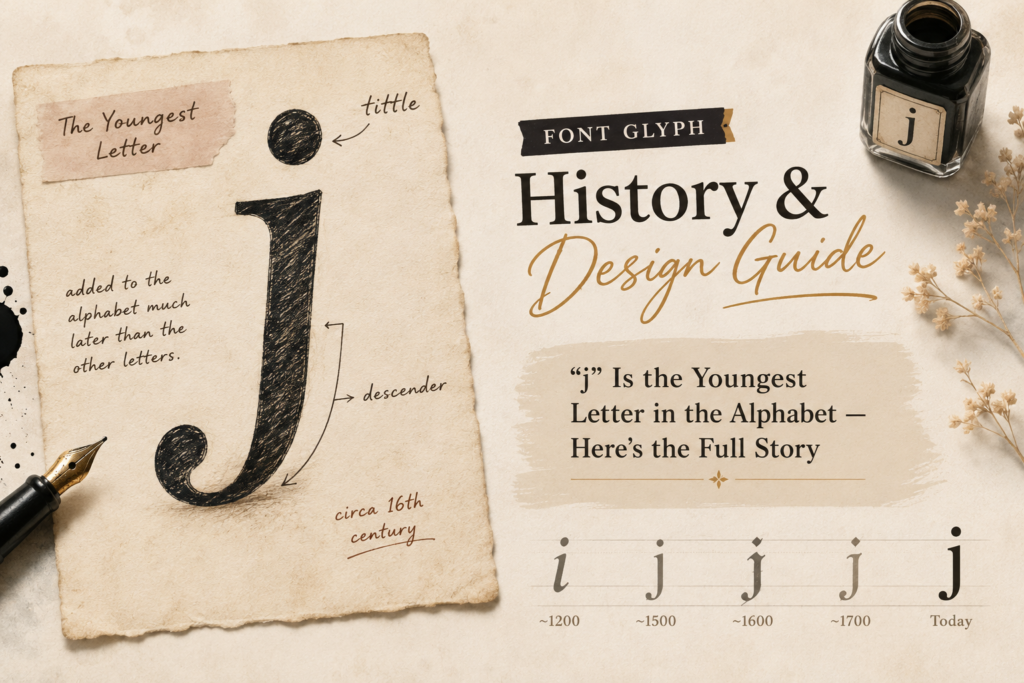
Every other letter in the Latin alphabet can trace its shape back thousands of years to Phoenician or Greek origins. “j” can’t. It’s the newest letter in the entire alphabet, and it didn’t exist as an independent character until well after the printing press was already in wide use.
A Short History of “j”
For most of its written life, “j” wasn’t a letter at all — it was a stylistic variant of “i.” As covered in our last entry on lowercase “i,” Latin used a single vertical stroke for both vowel and consonant sounds that we now split between “i” and “j.” Scribes and early printers would sometimes write a final “i” in a sequence with a small downward flourish or tail, particularly at the end of Roman numerals (think “iij” instead of “iii” for the number three) or at the start or end of certain words, purely as a stylistic or legibility convention rather than a marker of a genuinely different sound.
This changed gradually starting in the 16th century, when scholars and grammarians working on Romance languages began pushing to separate the vowel sound of “i” from the consonant sound it sometimes represented, which in several languages had drifted toward something closer to a “y” or soft “j” sound. The Italian grammarian Gian Giorgio Trissino is often credited as one of the earliest to argue clearly for treating “i” and “j” as distinct letters representing distinct sounds, in the early 1500s. The distinction spread slowly across European printing over the following two centuries, and “j” wasn’t fully and consistently treated as a separate letter in English dictionaries and alphabets until sometime in the 17th and 18th centuries — remarkably late, considering how established the rest of the alphabet already was by that point.
Because “j” essentially grew out of a decorative tail added to “i,” its shape has always stayed closely tied to its parent letter — a fact still visible in the finished glyph today.
Anatomy of a Lowercase “j”
Lowercase “j” is built from a stem that begins at x-height, just like “i,” topped with the same small tittle, and then extended downward into a descender — a curved tail that drops below the baseline, typically hooking to the left at the bottom.
This makes “j” the only lowercase letter in the standard alphabet that combines a tittle with a descender, giving it a genuinely unique silhouette. Every other dotted letter, namely “i,” stays entirely within or just above the x-height; every other descending letter, like “g,” “p,” “q,” and “y,” doesn’t carry a dot. “j” sits alone at the intersection of both features.
The descender’s curve is the letter’s most expressive design element, since the stem and tittle are essentially locked in place by matching “i.” A tighter, shorter hook feels more restrained and modern; a longer, more pronounced curl feels more traditional or calligraphic. The depth of the descender also needs to align with other descending letters in the typeface to keep the line’s rhythm consistent below the baseline.
Designing the Letter From Scratch
Type designers almost always draw “j” directly after finishing “i,” since the stem width and tittle are meant to match exactly — any deviation between the two would look like an inconsistency rather than an intentional design choice, given how closely related the letters are.
The real design work goes entirely into the descender. Designers typically extend the “i” stem downward and begin experimenting with the hook’s curve and depth, checking it against other descending letters like “g,” “p,” “q,” and “y” to keep the below-baseline rhythm of the typeface consistent. A descender that’s too shallow can make “j” look clipped or unfinished next to its deeper-descending neighbors; one that’s too deep can throw off the visual balance of a line of text, especially in tighter paragraph spacing.
Because “j” is a relatively rare letter in English compared to something like “e” or “a,” designers sometimes have more creative freedom with its descender curve than they would with a more heavily used letter, since any minor stylistic flourish won’t repeat often enough to become visually exhausting across a page. This is part of why “j” often gets a slightly more decorative treatment in display and script fonts than more frequently used letters do.
Unique Facts About “j”
“j” is the least frequently used letter in written English, appearing far less often than any other letter in the alphabet — which is part of why it’s worth a high point value in games like Scrabble, where letter values are based directly on frequency.
Because “j” only fully separated from “i” a few centuries ago, some languages and alphabetization systems still show traces of that shared history. A handful of older reference works and some non-English alphabetization conventions continue to sort “i” and “j” together rather than treating them as fully independent letters in sequence.
“j” is also one of only two lowercase letters that combines a dot with a descending stroke below the baseline in the way it does — a genuinely rare structural combination that makes it visually distinctive even at a glance, despite being built from parts borrowed almost entirely from other letters.
“j” in Popular Fonts
In Garamond and other old-style serifs, “j” carries a graceful, calligraphic hook that echoes the pen-based origins of the rest of the typeface, often extending fairly deep below the baseline. Helvetica keeps the descender shorter and more controlled, with a clean, simple curve that matches its neutral, engineered character. Futura gives “j” a nearly geometric hook, consistent with the compass-and-ruler precision found throughout the rest of its letterforms.
Summary
Lowercase “j” is the alphabet’s youngest member, born out of a decorative flourish once added to “i” and only formally recognized as an independent letter a few centuries ago. Its unusual anatomy — the only lowercase letter combining a tittle with a descender — reflects that shared ancestry directly, carrying “i”‘s dot into a completely different structural territory below the baseline. Few letters demonstrate as clearly how a typeface detail can start as pure decoration and end up as an entirely new character in the alphabet.